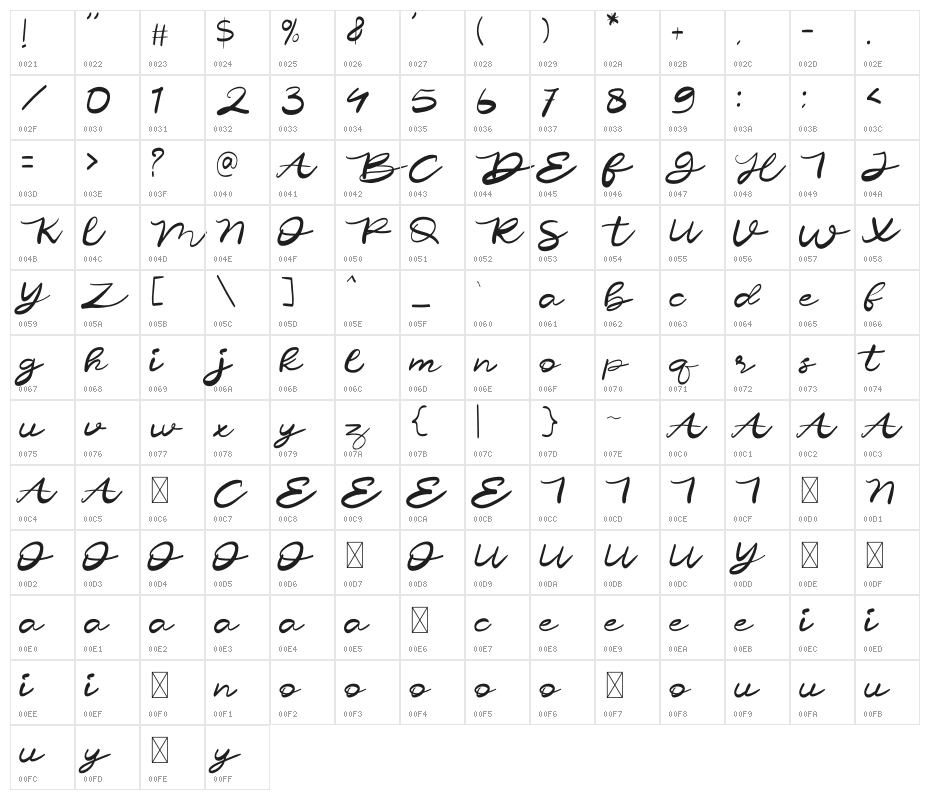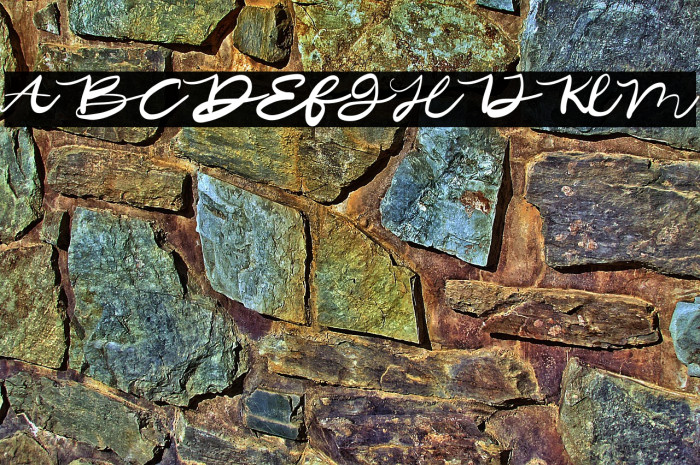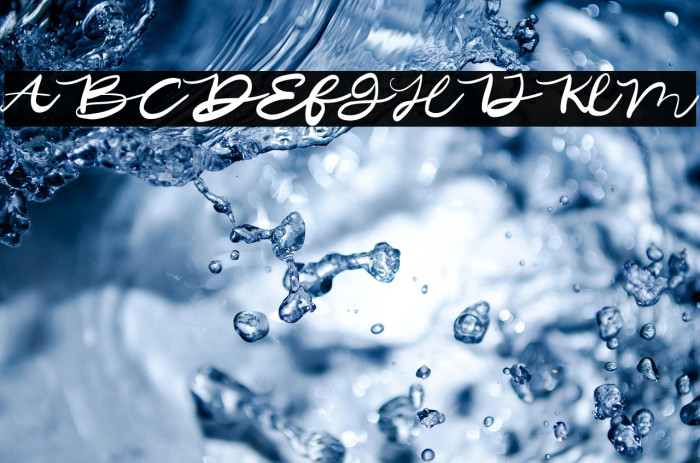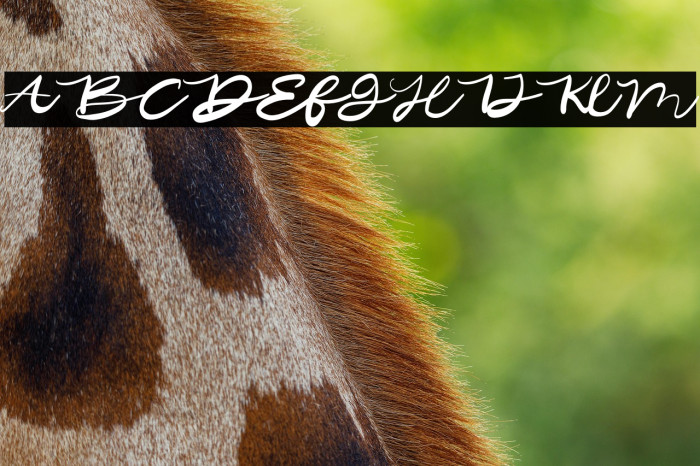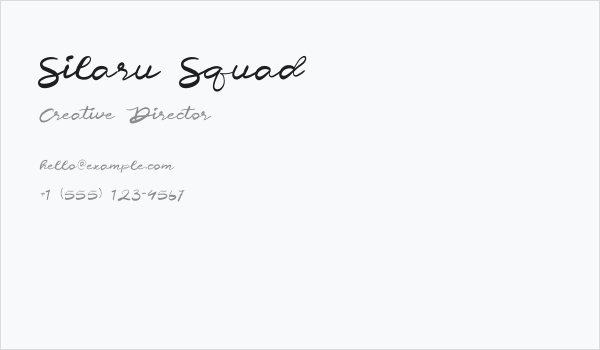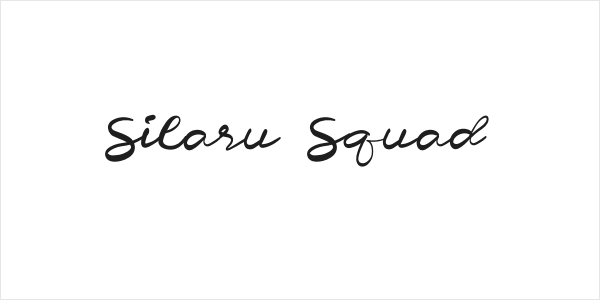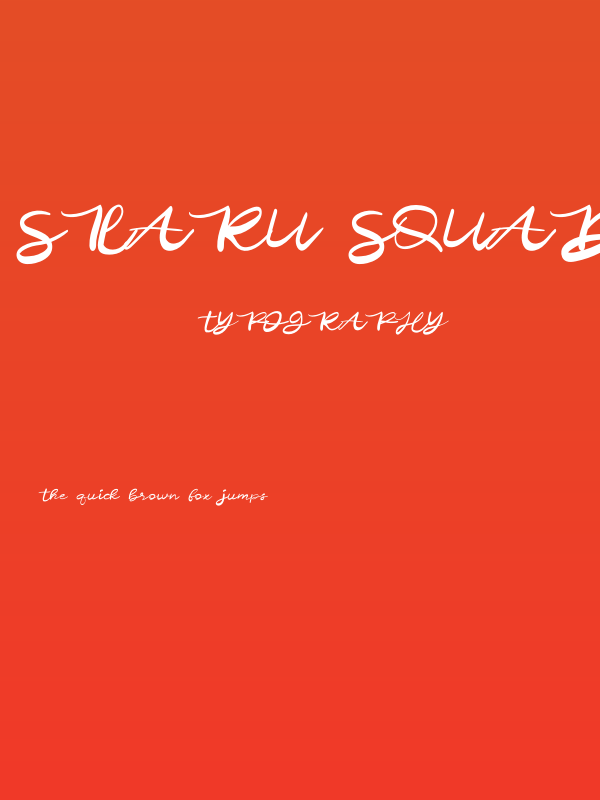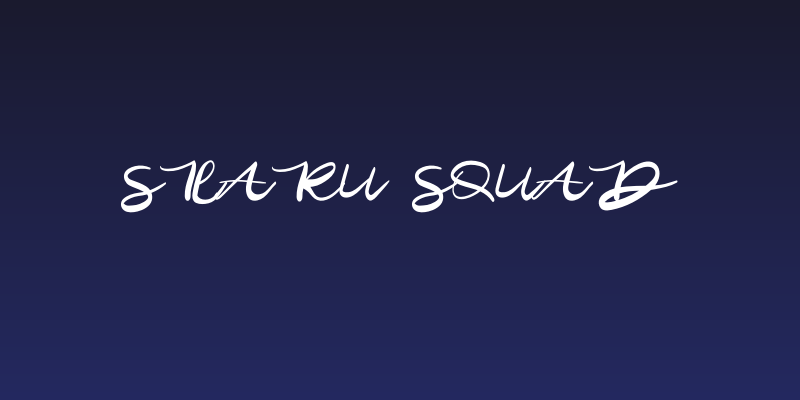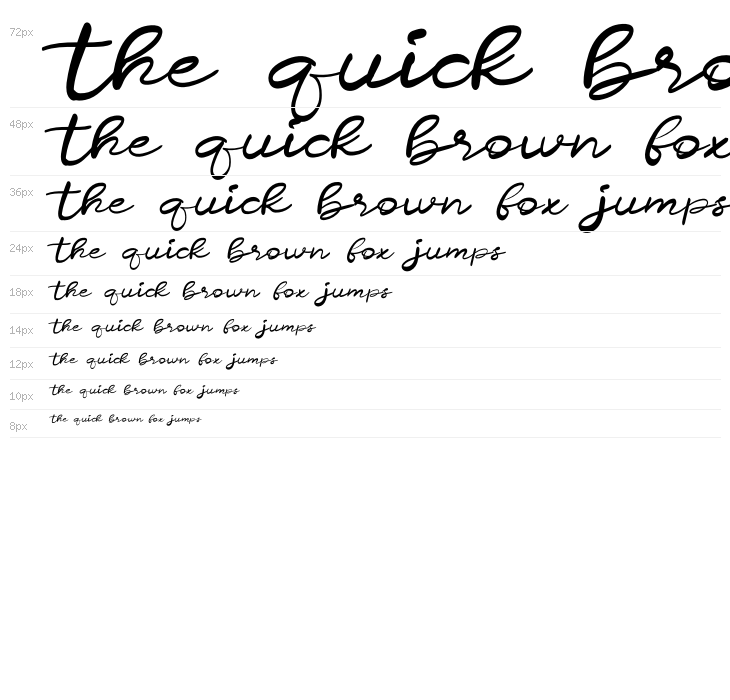
Silaru Squad Font
Silaru Squad Description
This font features a flowing, cursive style with elegant, interconnected letters that mimic the fluidity of handwriting. The uppercase letters are bold and expressive, while the lowercase letters maintain a consistent, smooth flow. The numerals are distinct yet harmonize with the overall script style. Special characters are creatively integrated, maintaining the font's cohesive aesthetic. The strokes vary in thickness, adding a dynamic and lively feel. This font is ideal for projects that require a personal touch or a sense of elegance and sophistication.